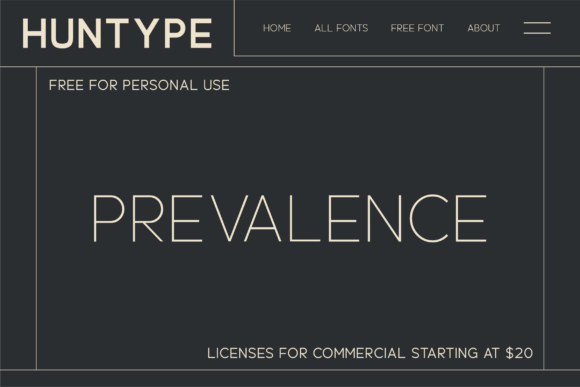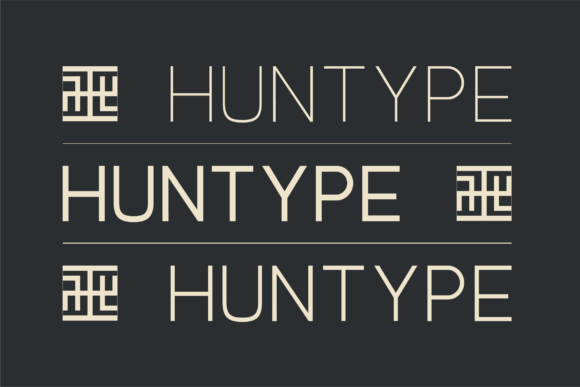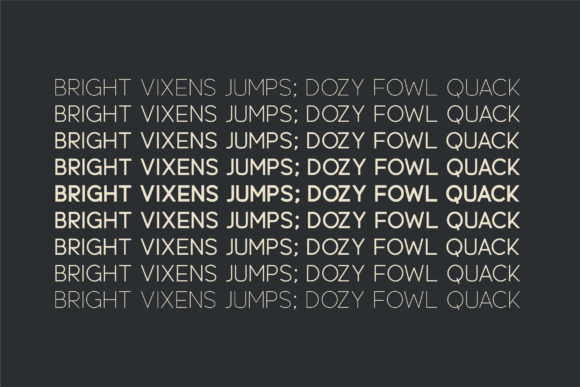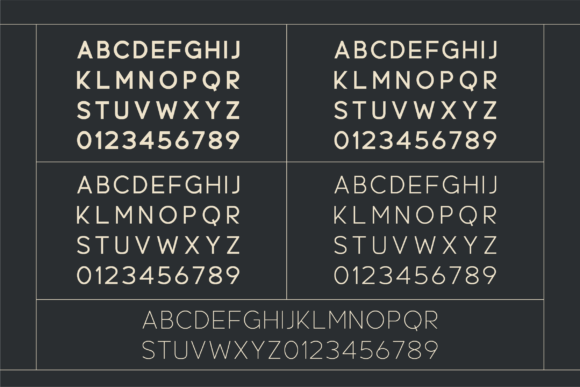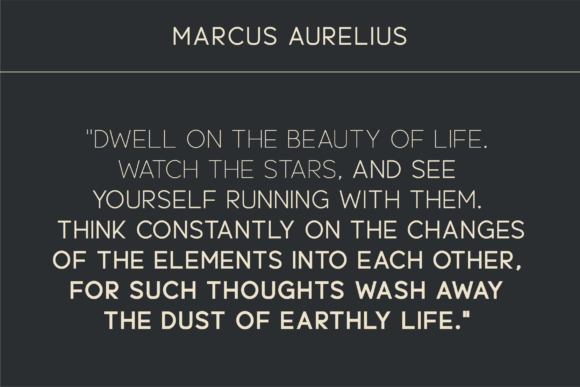
Introduction to Prevalence Font
As designers, we’ve all been there – stuck on a creative project, struggling to find the perfect font to elevate our design. The moment of clarity comes when you discover a game-changer, and that’s exactly what we’re excited to share with you today.
Meet the Prevalence Font, a high-quality, modern font family that’s about to become your new go-to design resource. With its sleek, contemporary style and five weights from Thin to Black, Prevalence Font offers unparalleled versatility for any creative project. Whether you’re working on a branding project or crafting headlines, this font family is sure to impress with its readability and sophistication.
Key Features of Prevalence Font
- High-quality design resource ideal for creative projects, with a clean and modern aesthetic.
- Unique characteristic: a modern sans-serif design with a subtle rounded edge, making it perfect for headings and titles.
Honest Review: Prevalence Font
As a designer, I’m always on the lookout for high-quality design resources to enhance my creative projects. Recently, I stumbled upon the Prevalence Font, and I’m excited to share my honest review with you.
- ✨ The Prevalence Font offers a unique and modern aesthetic that’s perfect for a variety of design applications.
- ⚠️ The font’s legibility can be affected by certain font sizes and resolutions.
- ⚠️ Some users may find the font’s modern style too trendy or overpowering.
Overall, I’m impressed with the Prevalence Font’s quality and versatility. While it may have some limitations, it’s a great addition to any designer’s toolkit. If you’re looking for a high-quality font for your creative project, the Prevalence Font is definitely worth considering.
Common Use Cases for Prevalence Font
The Prevalence Font is ideal for use in:
Logo design
Brochure design
Infographic design
Web design